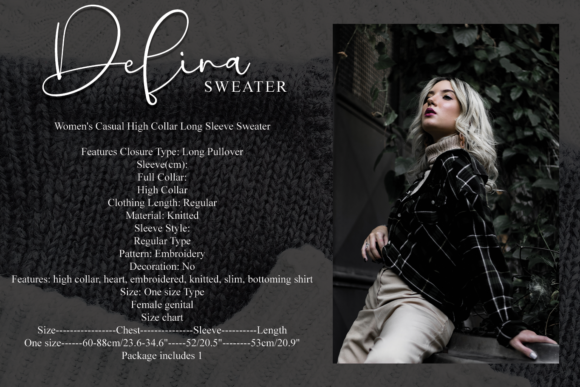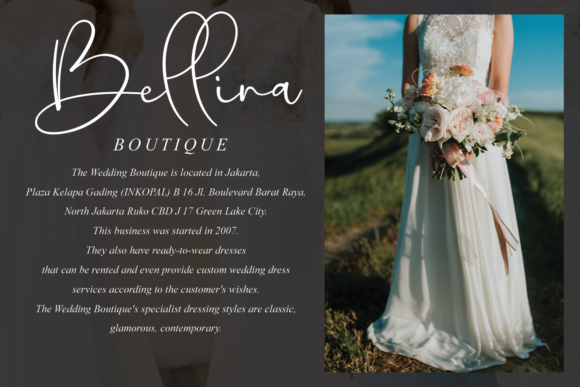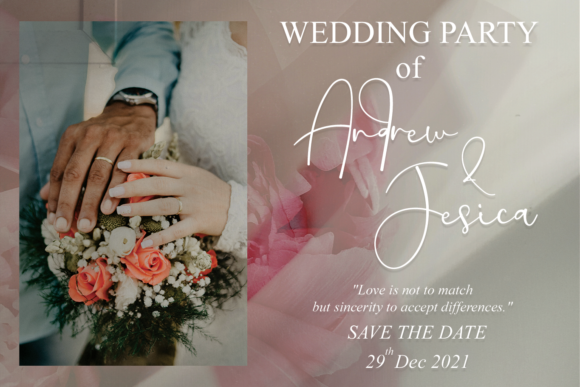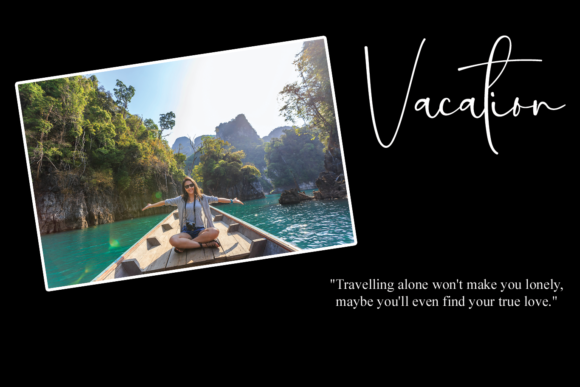
Unwrapping the Magic of Holiday Font
There’s nothing quite like the thrill of brainstorming a new design project, the blank page staring back at you like a canvas waiting to be transformed. As a creative, you know that sometimes it’s the smallest details that can elevate an idea from mere concept to masterpiece. And that’s exactly where fonts come in – the unsung heroes of design.
Enter Holiday Font, a charming and elegant calligraphy script that will transport your designs to a world of luxury and whimsy. With its flowing characters that seem to dance along the baseline, Holiday Font is the perfect addition to any creative project seeking to add a touch of romance and sophistication. Whether you’re crafting a wedding invitation, a holiday card, or a branding package, this font is sure to bring a smile to your face and a sparkle to your design.
Holiday Font Key Features
- Unique Characteristics: Holiday Font features a unique, festive design that is perfect for use in holiday-themed designs, such as Christmas cards, gift tags, and party invitations.
Holiday Font Review
First off, I want to say that I’m a big fan of the whimsical and playful vibe that the Holiday Font brings to the table ✨. The intricate details and ornaments add a touch of magic to any design project. I particularly love how it’s perfect for creating festive and holiday-themed designs, from Christmas cards to New Year’s Eve invitations.
The font is also highly customizable, which is a major plus ✨. With its many variations and styles, you can easily find the perfect fit for your project. Plus, it’s super easy to use and integrates seamlessly with most design software.
- ⚠️ The font can feel a bit overwhelming if used in large quantities, so be sure to use it sparingly to avoid visual clutter.
Overall, I’m really impressed with the Holiday Font and would definitely recommend it to designers looking to add a touch of holiday cheer to their projects. While it may have some limitations, the pros far outweigh the cons. If you’re looking for a fun and festive font to spice up your designs, look no further than the Holiday Font!